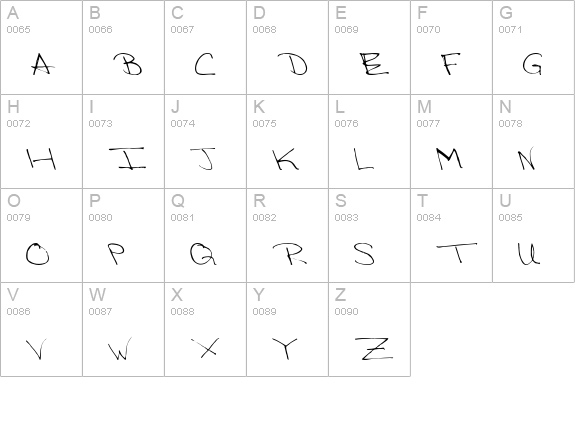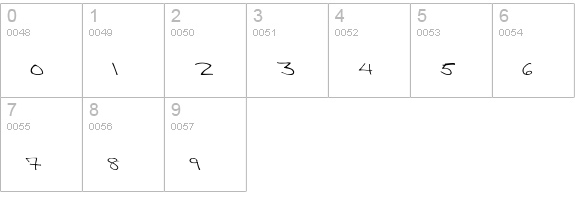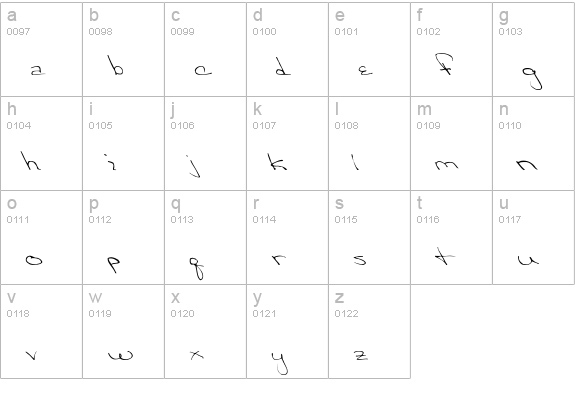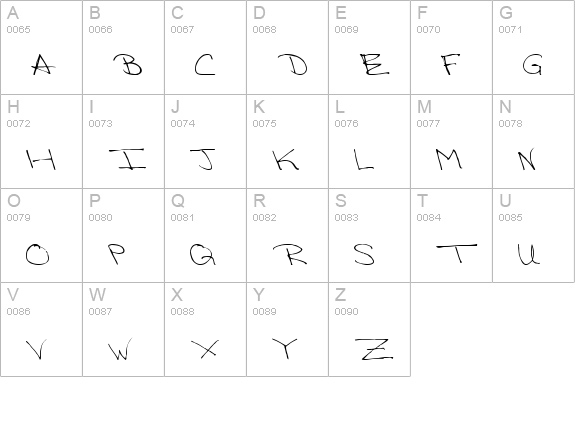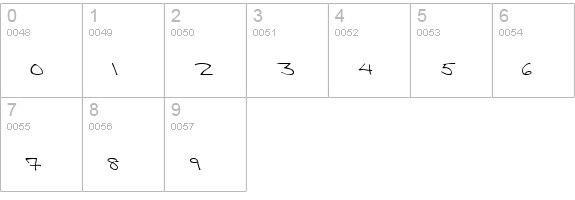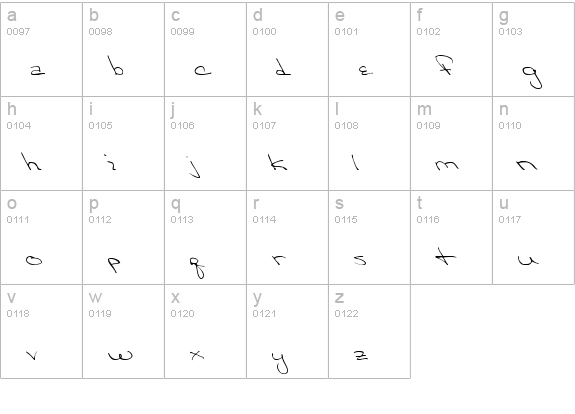
Victorias-Secre Font Details
Introducing Victorias-Secre font, a captivating and elegant typeface that exudes timeless beauty and sophistication. This exquisite font is the epitome of grace, with its delicate letterforms and refined curves that effortlessly glide across the page. Victorias-Secre font is the perfect choice for those seeking to add a touch of elegance to their designs. Whether you're creating invitations for a high-end event, designing a luxurious logo, or crafting a stylish editorial layout, this font will elevate your project to new heights. The beauty of Victorias-Secre font lies in its versatility. It effortlessly transitions from classic to contemporary, making it an essential tool for designers of all styles and genres. Its legibility ensures that your message is conveyed with clarity, while its unique flair adds that extra touch of sophistication. But what sets Victorias-Secre font apart is not just its extraordinary design, but also its accessibility. We believe that great typography should be freely available to all, which is why you can download Victorias-Secre font for free at FontsMarket.com. Now, you can bring a touch of glamour and refinement to your projects without breaking the bank. So whether you're a professional designer looking to elevate your work, or a creative enthusiast seeking to add a touch of elegance to your personal projects, Victorias-Secre font is the perfect choice. Download it for free at FontsMarket.com and let its timeless beauty transform your designs into works of art.